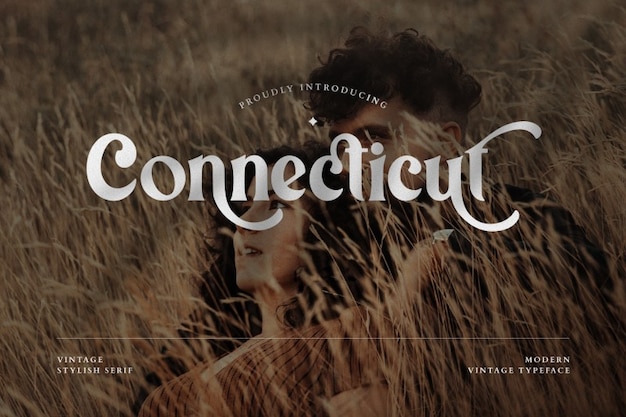
Connecticut Font
Creatype Studio
Connecticut font bridges the past and present with its unique blend of stylish, vintage, and modern elements. It's like taking a stroll through a quaint New England town while wearing contemporary fashion. Each letter exudes a timeless charm that's reminiscent of classic fonts from the past, but with a modern twist. Whether you're working on a retro-inspired project, creating a stylish logo, or designing a vintage-themed poster, Connecticut has you covered. It's the font that effortlessly marries the elegance of bygone eras with the sophistication of today's design trends, making it a perfect choice for anyone seeking that elusive balance between vintage and modern aesthetics.